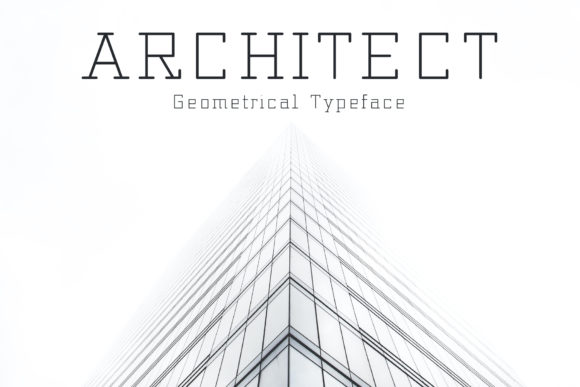
Embark on a typographic adventure with Architect Font, a captivating serif font reminiscent of the dawn of personal computers. This font is not just a collection of letters; it's a gateway to a world of creative possibilities, ready to transform your designs into masterpieces.
Immerse yourself in the allure of Architect's meticulously crafted curves and sharp edges, a testament to the golden age of digital typography. Let your imagination soar as you witness the seamless harmony between classic serif elegance and a modern, playful touch. Architect Font is the perfect muse for designers seeking to make a lasting impression.
With Architect Font as your creative companion, you'll discover a font that defies limitations. Its versatility knows no bounds, effortlessly adapting to a symphony of design projects. From impactful headlines that command attention to logos that exude timeless sophistication, Architect Font is your steadfast partner in creating a visual feast.
Elevate your layouts with Architect Font's inherent ability to bring order and clarity to your designs. Experience the joy of crafting content that captivates readers, inviting them to delve deeper into your creations. Architect Font's crisp, legible letterforms ensure that your message shines, leaving an indelible mark on your audience.
Prepare to be amazed as Architect Font harmonizes beautifully with a diverse range of font companions. Unleash your creativity and embark on a typographic journey where possibilities abound. Whether you're crafting digital masterpieces or designing tangible works of art, Architect Font will seamlessly blend with your vision, elevating your designs to new heights.